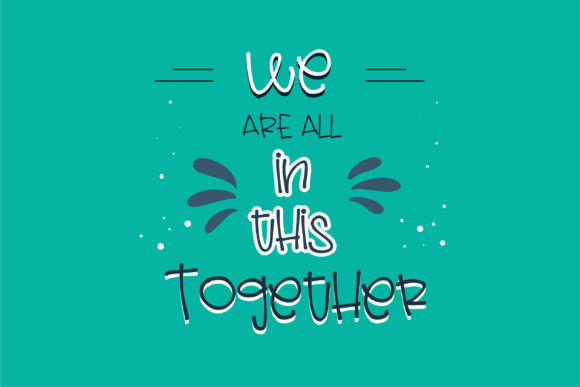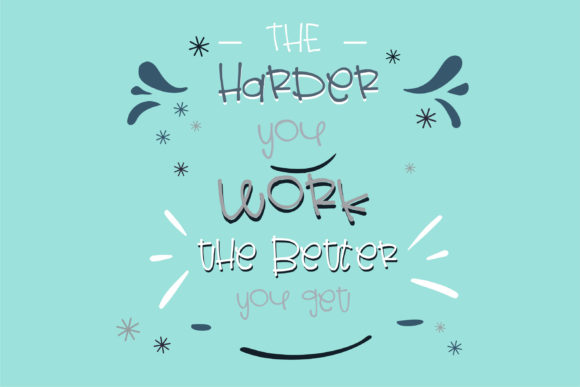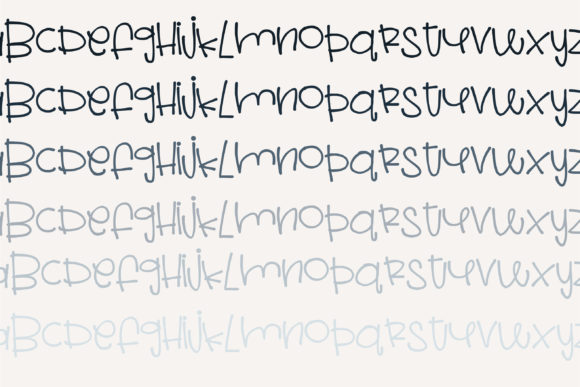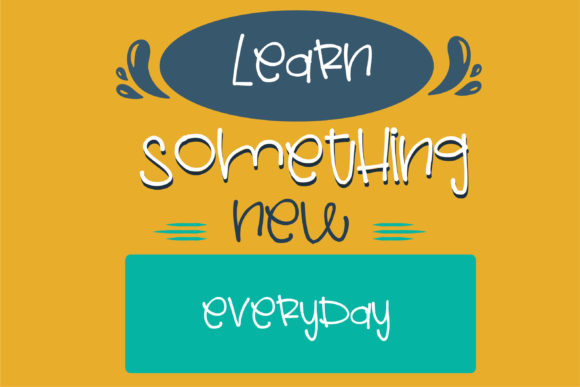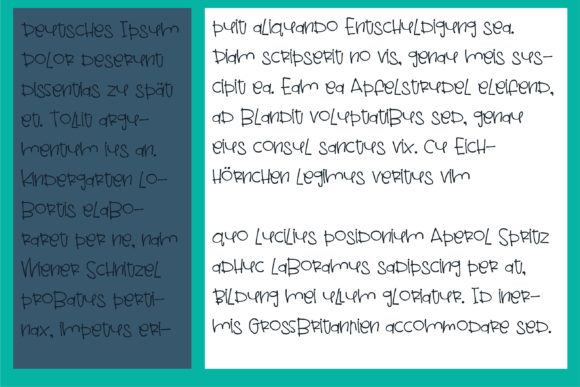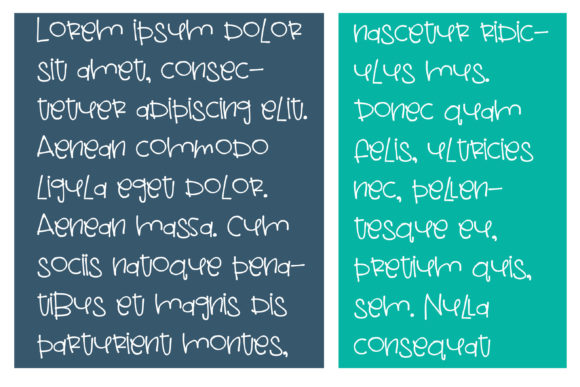
Troublemaker Font
About Troublemaker Font
Troublemaker, as the name suggests, is a handwritten font that exudes a playful and juvenile vibe. With its bouncy and whimsical letters, this font is a perfect choice for designing various kids-related content and projects. Whether you’re working on children’s books, playful stationery, or any creative endeavor aimed at a younger audience, Troublemaker brings a lighthearted and fun touch to your designs.
The bouncy and whimsical nature of Troublemaker makes it particularly well-suited for projects that seek to capture the energy and imagination of children. The letters dance across the page with a sense of playfulness, creating an engaging and friendly atmosphere. This makes Troublemaker an excellent choice for titles, headlines, or any text element where you want to convey a sense of joy and excitement.
Troublemaker’s handwritten style adds a personal touch to your designs, enhancing the overall authenticity and charm. It’s an ideal font for creating a lively and dynamic visual experience, making it suitable for a variety of kids-related materials. From posters and invitations to educational content, Troublemaker brings a whimsical quality that resonates with young audiences.
The font’s juvenile feel makes it a standout choice for playful stationery, including greeting cards, invitations, and other paper goods. Troublemaker’s bouncy letters contribute to a cheerful and celebratory aesthetic, making it perfect for special occasions or events geared towards children. The font adds a touch of fun and personality to your stationery designs.
In summary, Troublemaker is a handwritten font that radiates a juvenile and playful spirit. Its bouncy and whimsical letters make it an excellent choice for designing kids-related stuff, injecting a sense of joy and excitement into your projects. Let Troublemaker be the go-to font for capturing the youthful energy and imagination in your designs, creating a delightful and engaging visual experience.